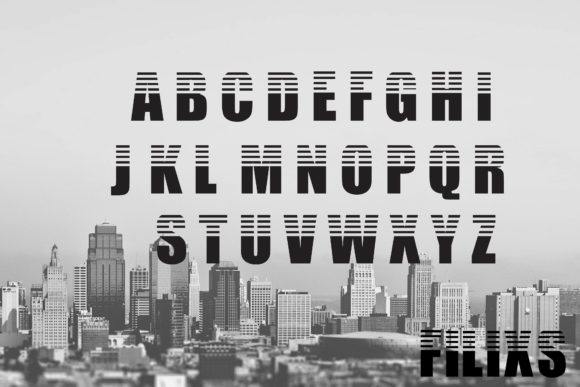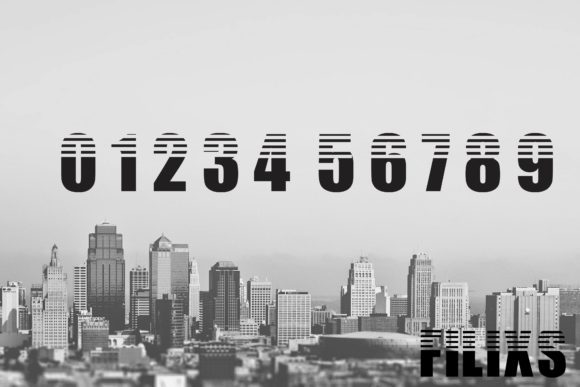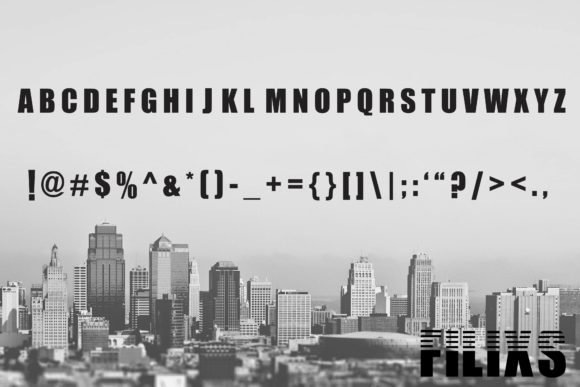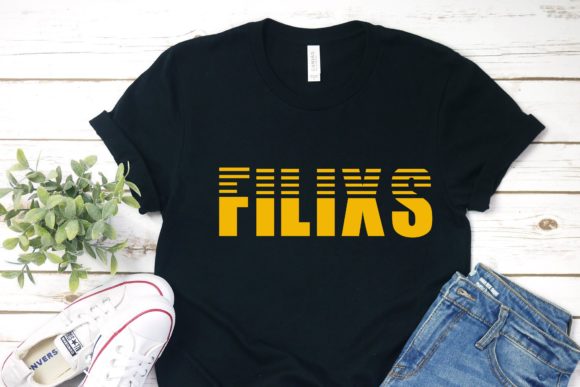
The Moment of Inspiration
Have you ever stared at a blank canvas, waiting for that spark of creativity to strike? It’s a feeling many designers know all too well. Sometimes, all it takes is the right font to set the imagination in motion. For those moments, we’re excited to introduce you to Filix, a friendly display font that’s sure to get your creative juices flowing.
Filix Font is designed to inspire outstanding designs, with its original look and feel. Whether you’re working on a logo, a poster, or a digital display, Filix is the perfect companion to bring your vision to life. Its unique character makes it a valuable asset for designers, allowing you to create something truly special and eye-catching.
Filix Font Key Features
- Font Family: Filix Font is a sans-serif typeface designed for digital use.
- Unique Characteristics: Features a clean, modern design with subtle rounded edges and a high x-height, making it suitable for body text and headlines.
Filix Font Review
Firstly, I’d like to say that the Filix Font has some really great qualities ✨. The font’s bold and modern design makes it perfect for headlines and titles, and its clean lines give it a very sleek look. It’s also great for use in digital media, as it’s easy to read on various screens.
The Filix Font also has a lot of customization options, which is great for designers who like to have control over their typography. It’s available in multiple weights and styles, which can be used to create a lot of visual interest.
- ⚠️ Limited use in body text: The Filix Font can be a bit difficult to read in smaller sizes, which makes it less suitable for use in body text.
- ⚠️ Limited language support: The Filix Font may not support certain languages or scripts, which can be a limitation for designers who need to work with multilingual content.
- ⚠️ Limited font sizes: The Filix Font may not scale well at very large or very small font sizes, which can affect its legibility.
Overall, the Filix Font is a great choice for designers who want a bold and modern look for their headlines and titles. However, it may not be the best choice for body text or for use in languages or scripts that it doesn’t support.
For optimal results, use Filix Font in combination with bold and italic styles to create emphasis.
Experiment with different font sizes and colors to create visual hierarchy in your design.
Filix Font is ideal for:
- Typography-based designs
- Branding and logos
- Infographics and data visualization
Alternatives to Filix Font
Poppins Font
Poppins Font is a clean and modern sans-serif font that is ideal for digital interfaces, logos, and body text. It has a sleek and minimalist design, making it perfect for creating a professional and sophisticated look.
Compared to Filix Font, Poppins Font has a more geometric and futuristic feel, making it suitable for modern and tech-savvy designs. However, it lacks the natural and organic feel of Filix Font, which may be a drawback for some designers.
Lato Font is a beautiful and elegant sans-serif font that is perfect for creating a warm and inviting atmosphere. It has a unique blend of geometric and organic elements, making it suitable for a wide range of designs, from logos to body text.
Compared to Filix Font, Lato Font has a more refined and sophisticated feel, making it ideal for high-end designs and luxury brands. However, it may not be as versatile as Filix Font, which can be used for a wide range of designs, from modern to traditional.
Montserrat Font is a strong and geometric sans-serif font that is perfect for creating a bold and urban look. It has a unique blend of modern and industrial elements, making it suitable for designs that require a edgy and avant-garde feel.